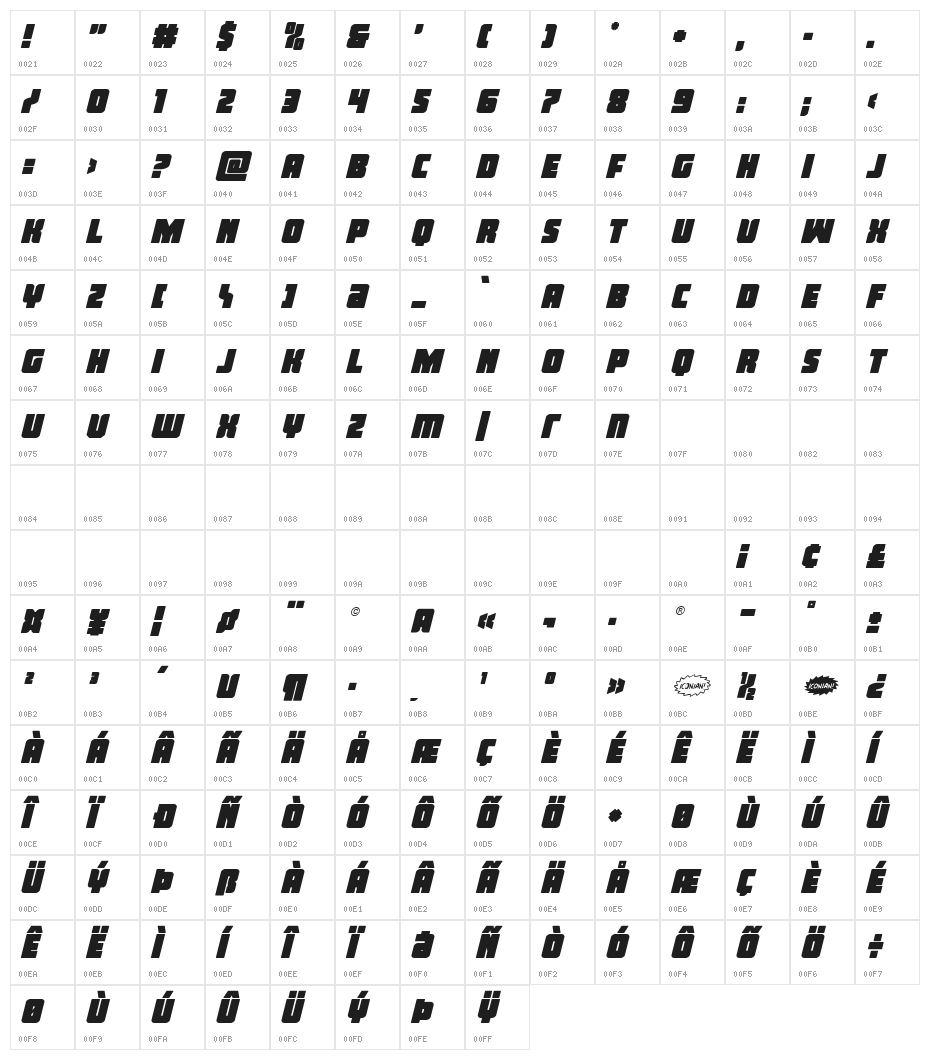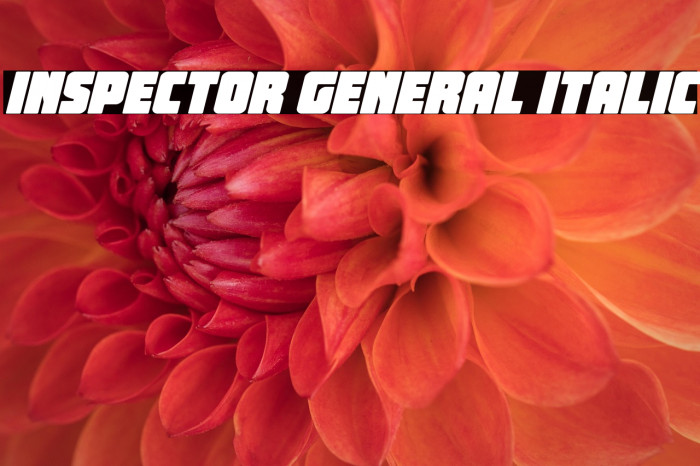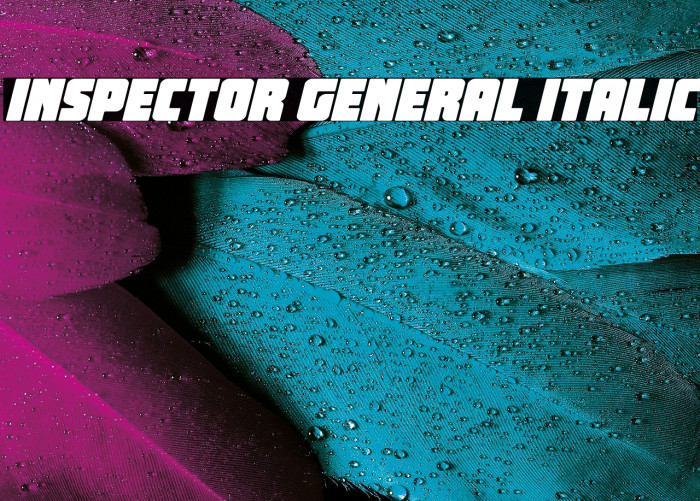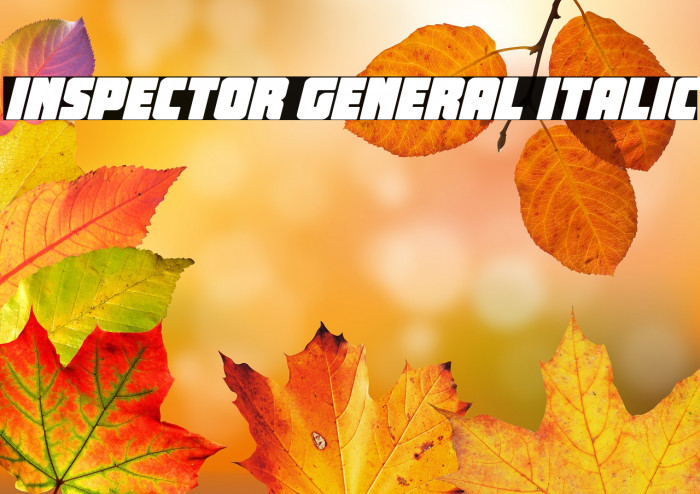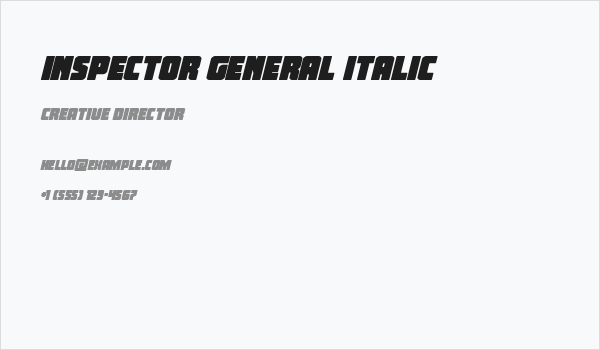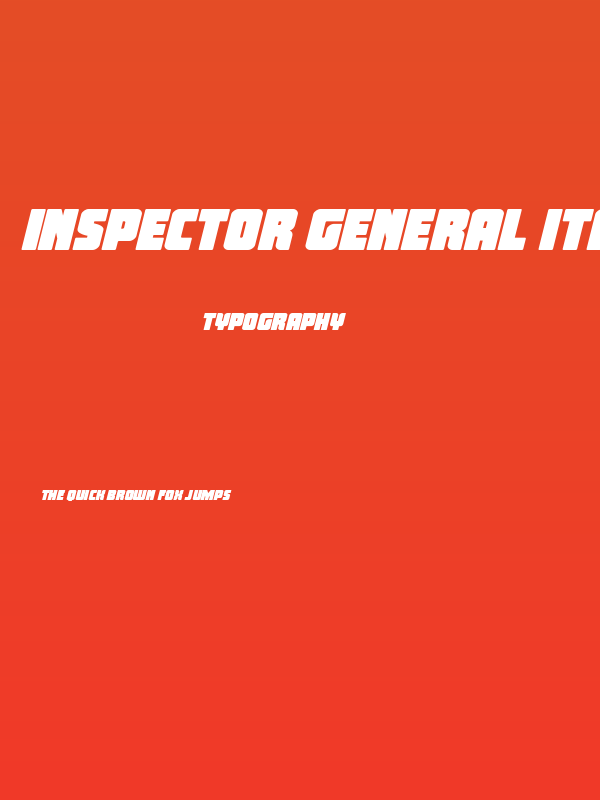
Inspector General Italic Font
Inspector General Italic Description
This font features a bold and dynamic style with a strong italic slant, giving it a sense of motion and energy. The characters are wide and blocky, with a uniform thickness that contributes to its bold appearance. The uppercase and lowercase letters maintain a consistent design, enhancing readability while still providing a distinct, impactful look. The numbers and special characters are designed to match the boldness and style of the letters, making this font versatile for various uses. Its strong presence makes it suitable for attention-grabbing headlines and titles.
| Proposed Projects | Ideal for sports branding, dynamic posters, and bold headlines. |